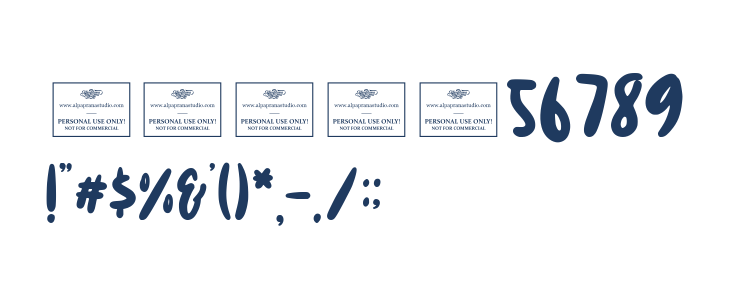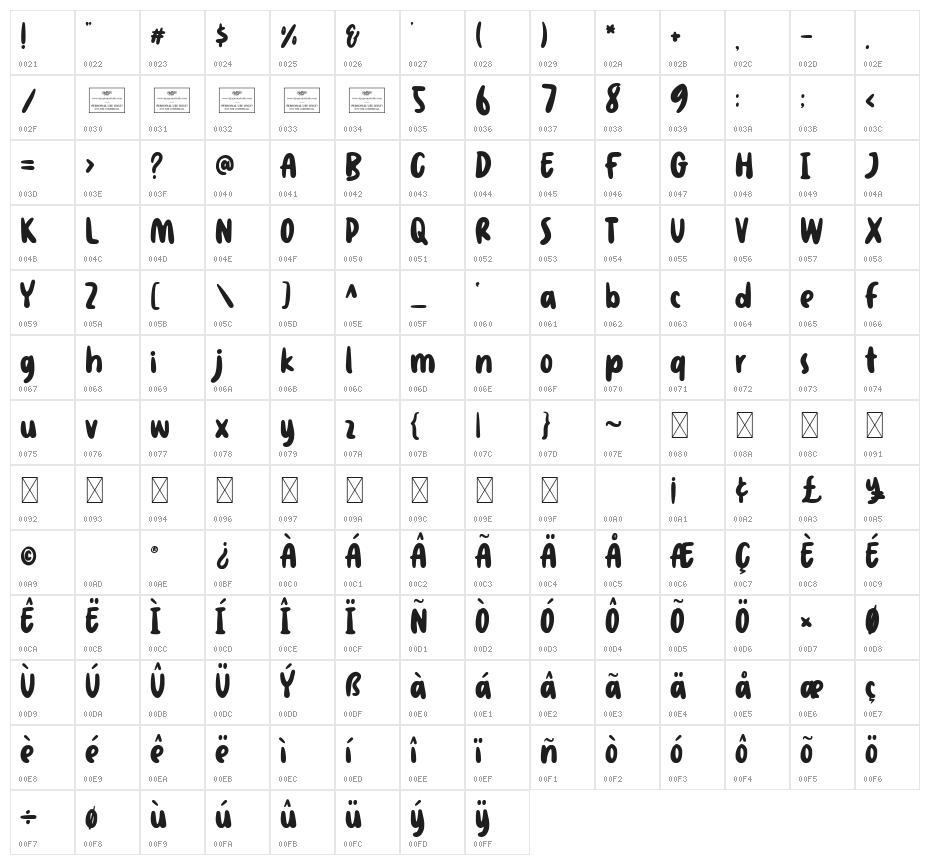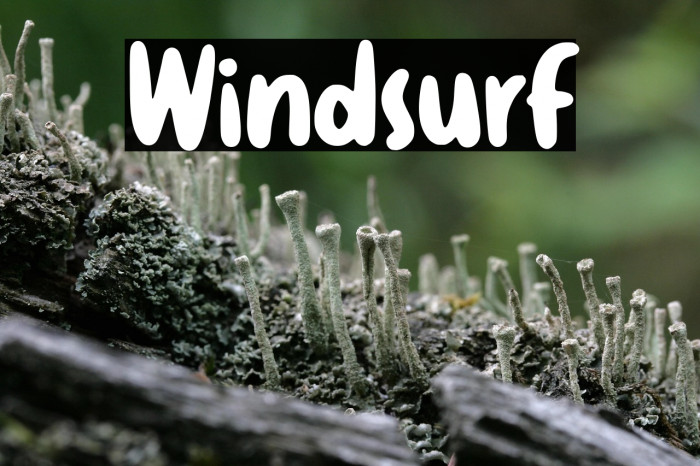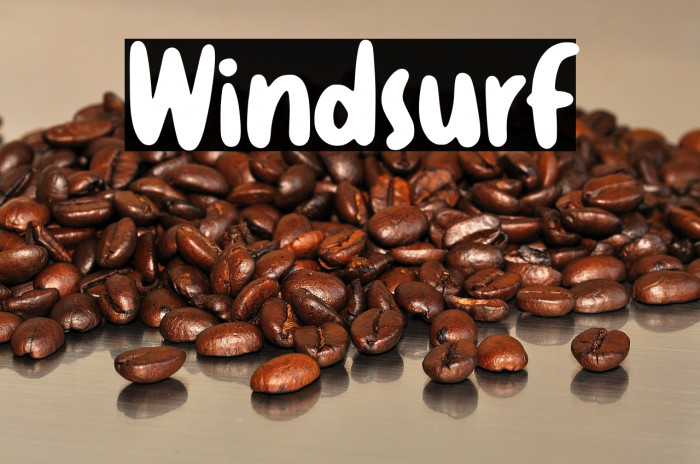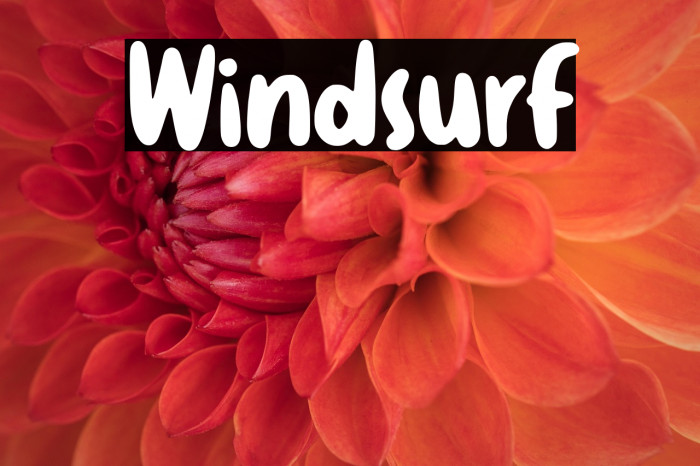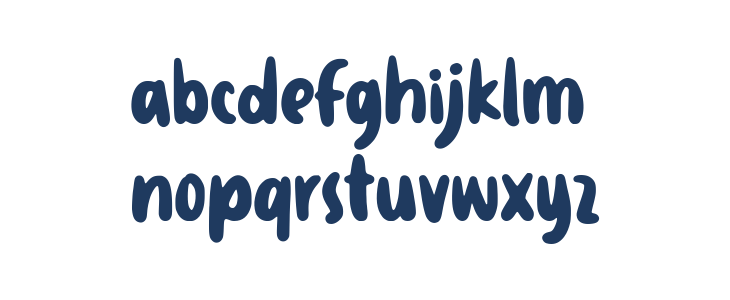
Windsurf Font
Windsurf Description
This font features a bold and playful handwritten style, characterized by its thick, rounded strokes and smooth curves. The letters have a casual and friendly appearance, making it ideal for informal and creative projects. The uppercase and lowercase letters maintain a consistent style, with a slight tilt that adds to the dynamic feel. Numbers and special characters are included, matching the overall aesthetic with their bold and rounded forms. The font's design is approachable and lively, suitable for projects that require a touch of personality and warmth.
| Overall Style | Playful, Casual |
| Use Case | Logos, Headlines, Informal Text |
| Proposed Projects | Ideal for greeting cards, children's books, playful branding, and social media graphics. |